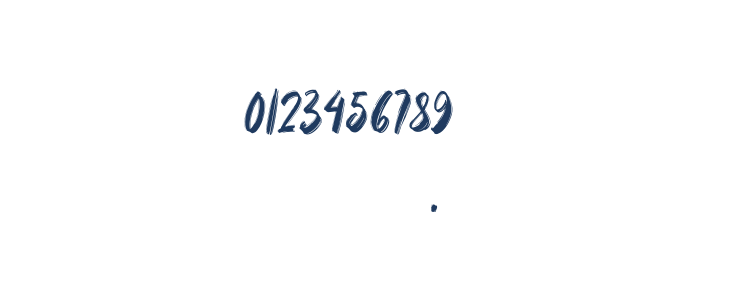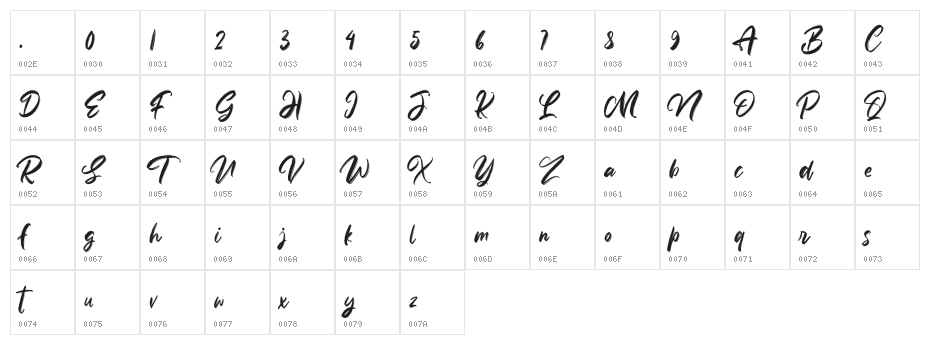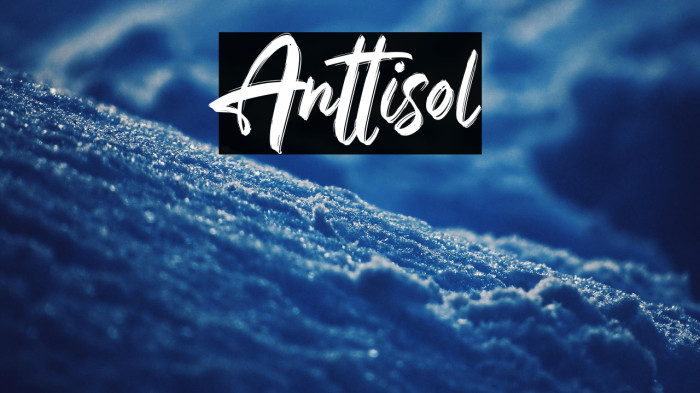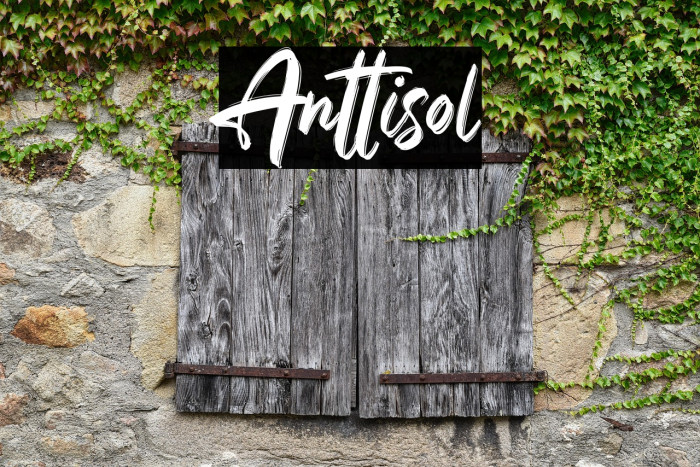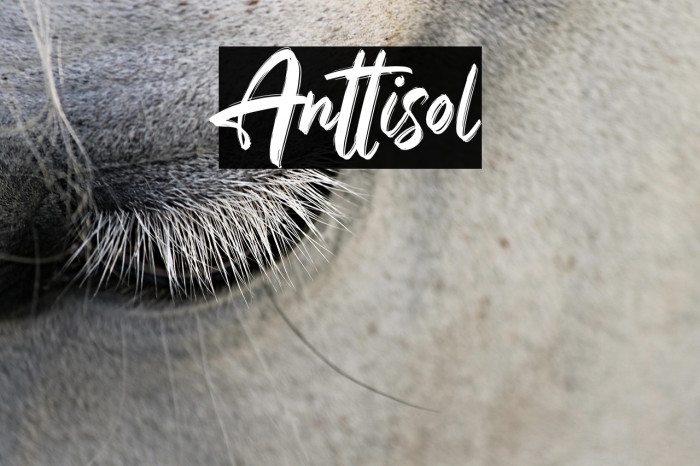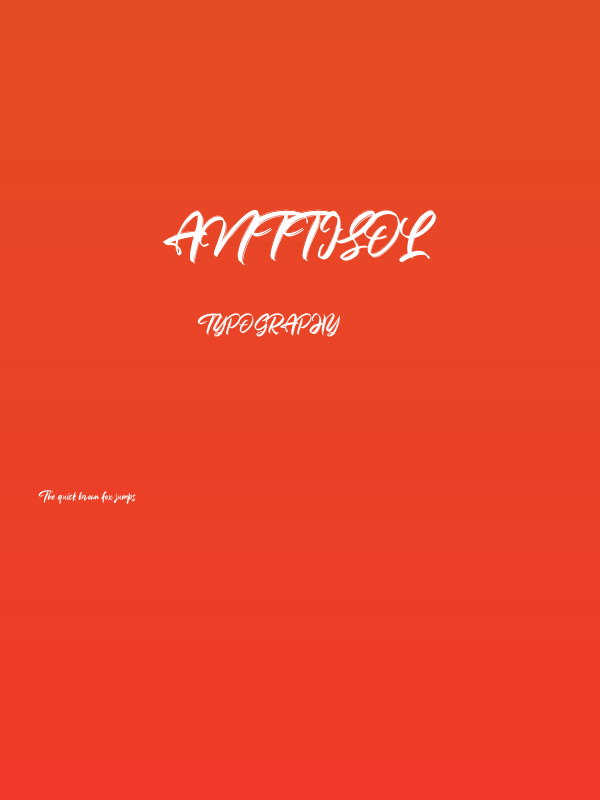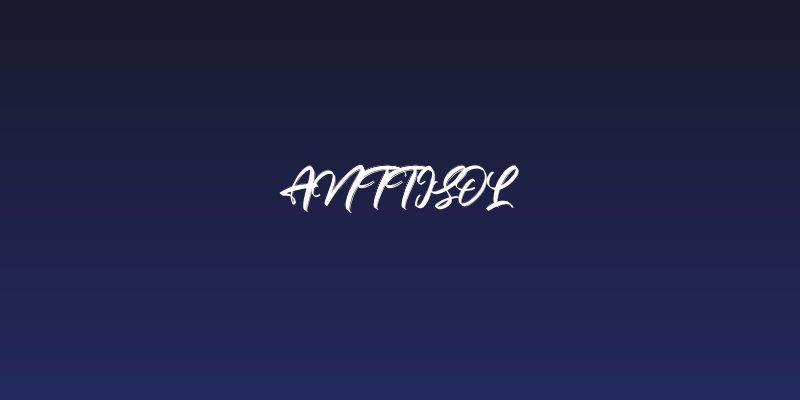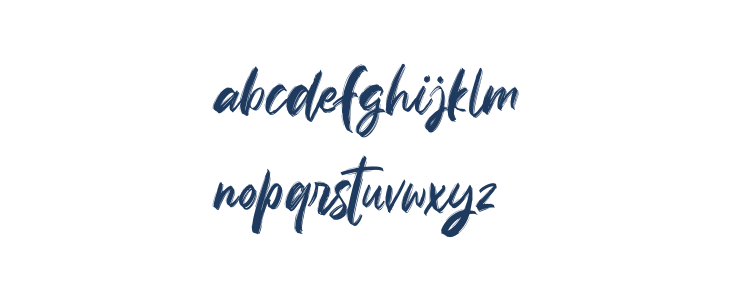
Anttisol Font
Anttisol Description
This font features a dynamic and expressive script style, characterized by its fluid strokes and elegant curves. The uppercase letters exhibit a bold and confident presence, with sweeping lines that convey a sense of motion and energy. The lowercase letters maintain a harmonious flow, complementing the uppercase with their slightly more restrained yet equally stylish appearance. The numerals are crafted with the same attention to detail, ensuring consistency across all characters. This font's unique blend of sophistication and flair makes it ideal for projects that require a touch of elegance and personality.
| Use Case | Logos, Headlines, Invitations |
| Proposed Projects | Ideal for wedding invitations, branding, logo design, and elegant packaging. |